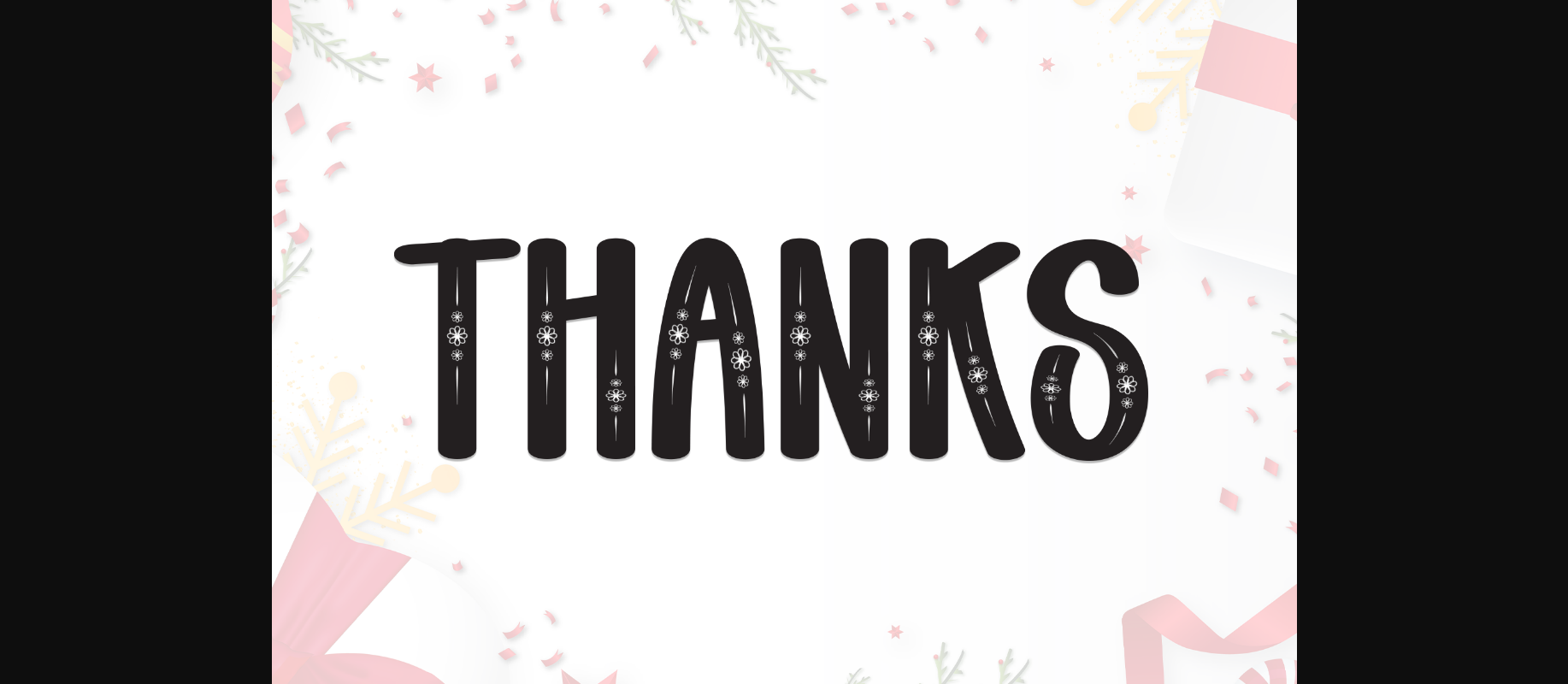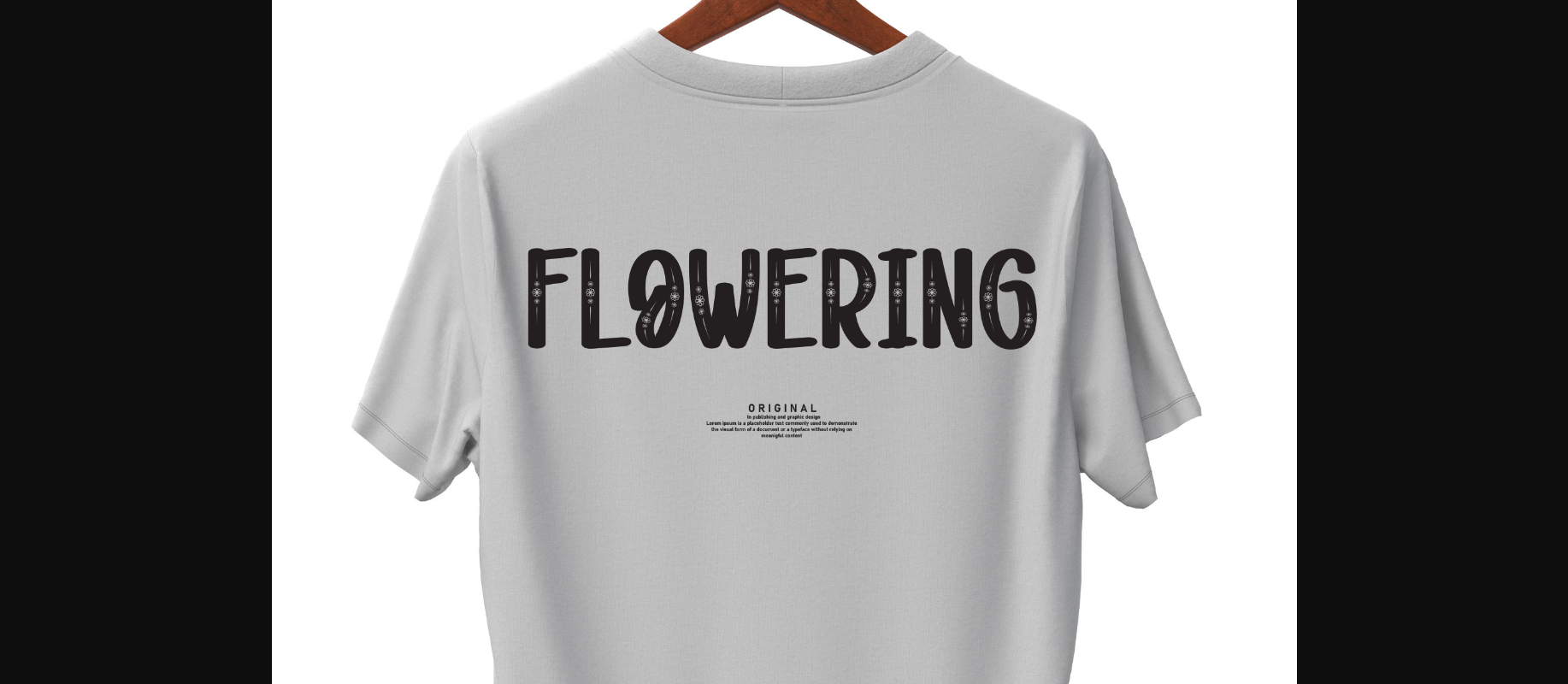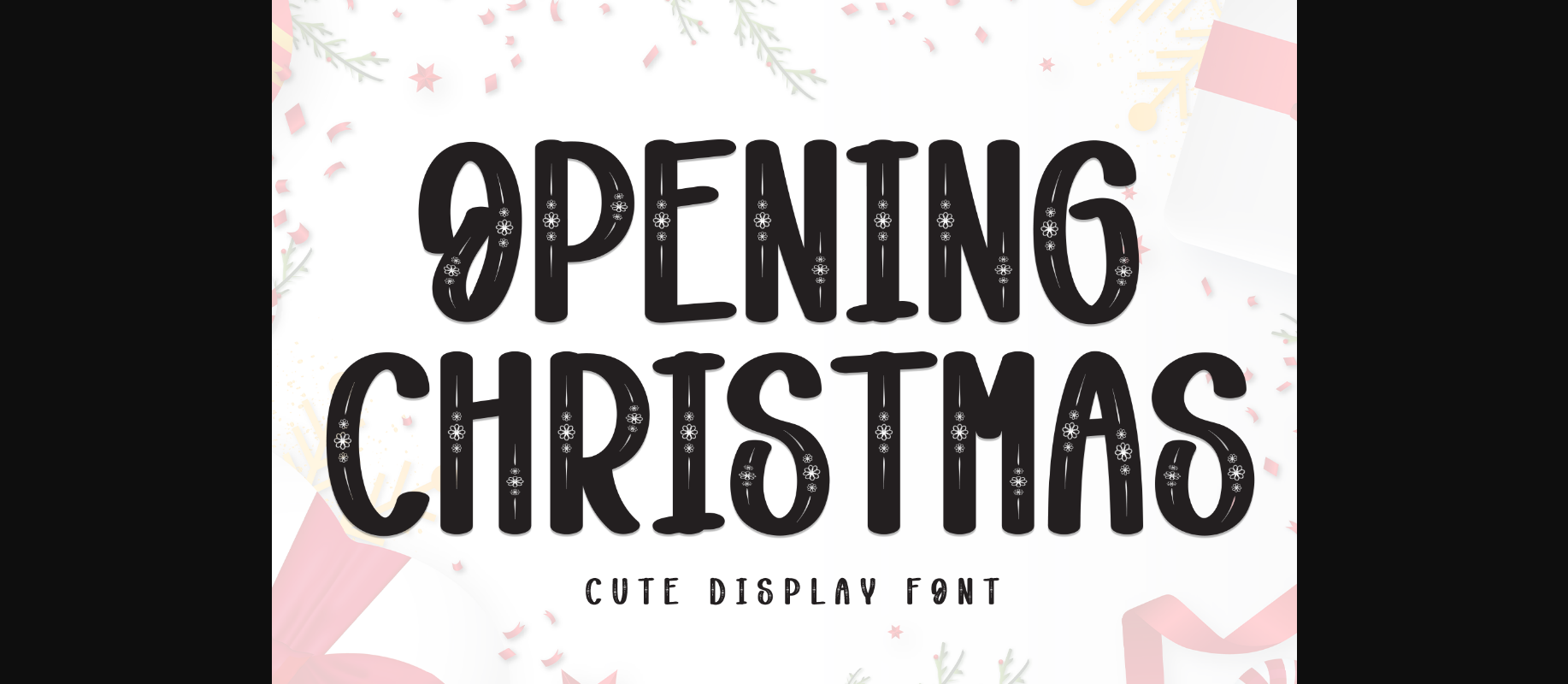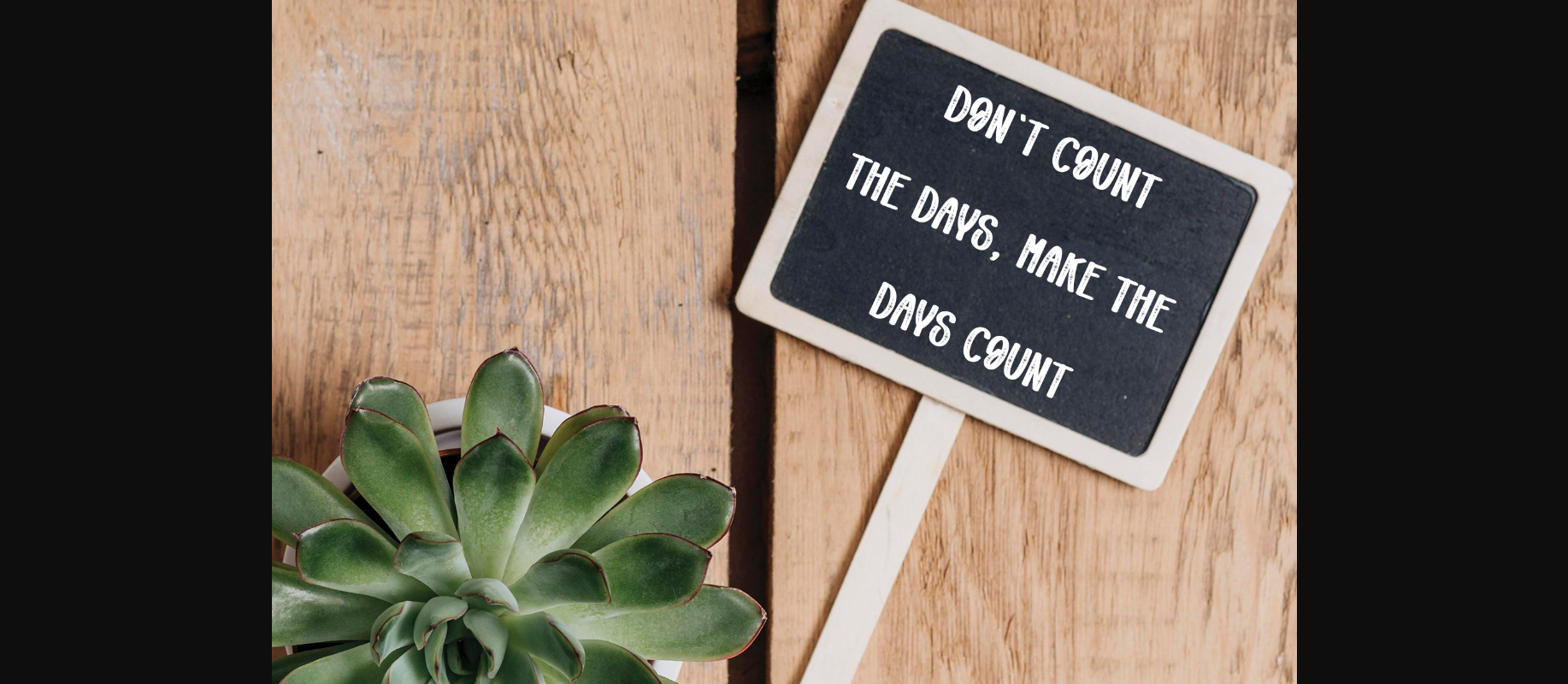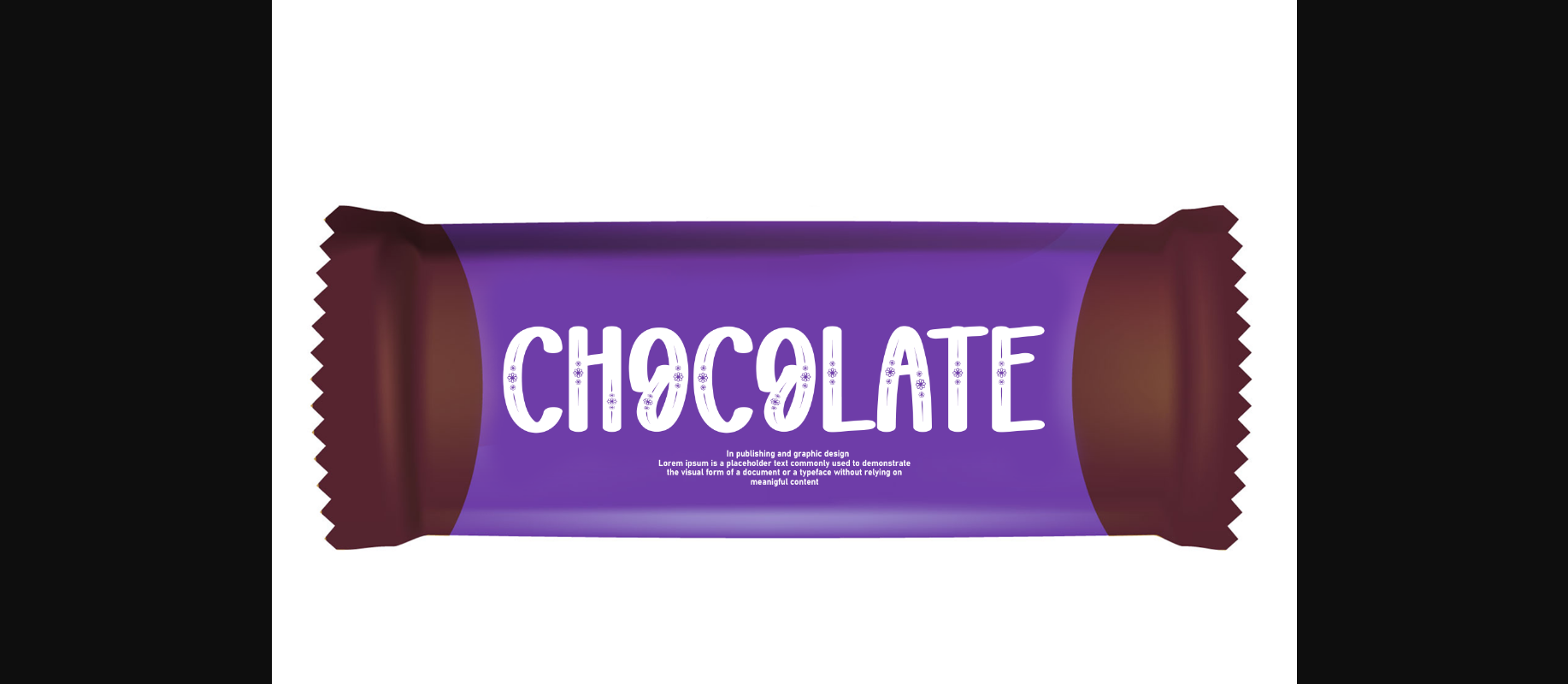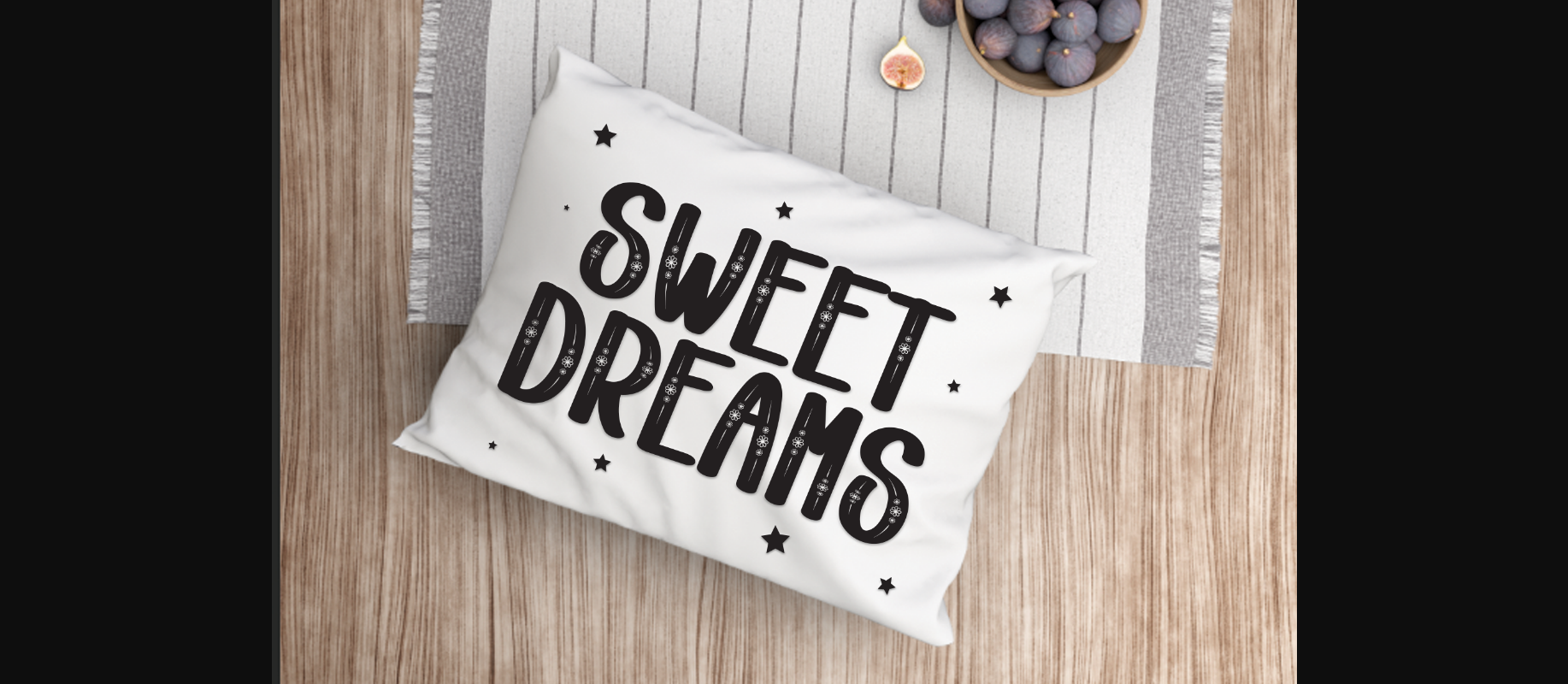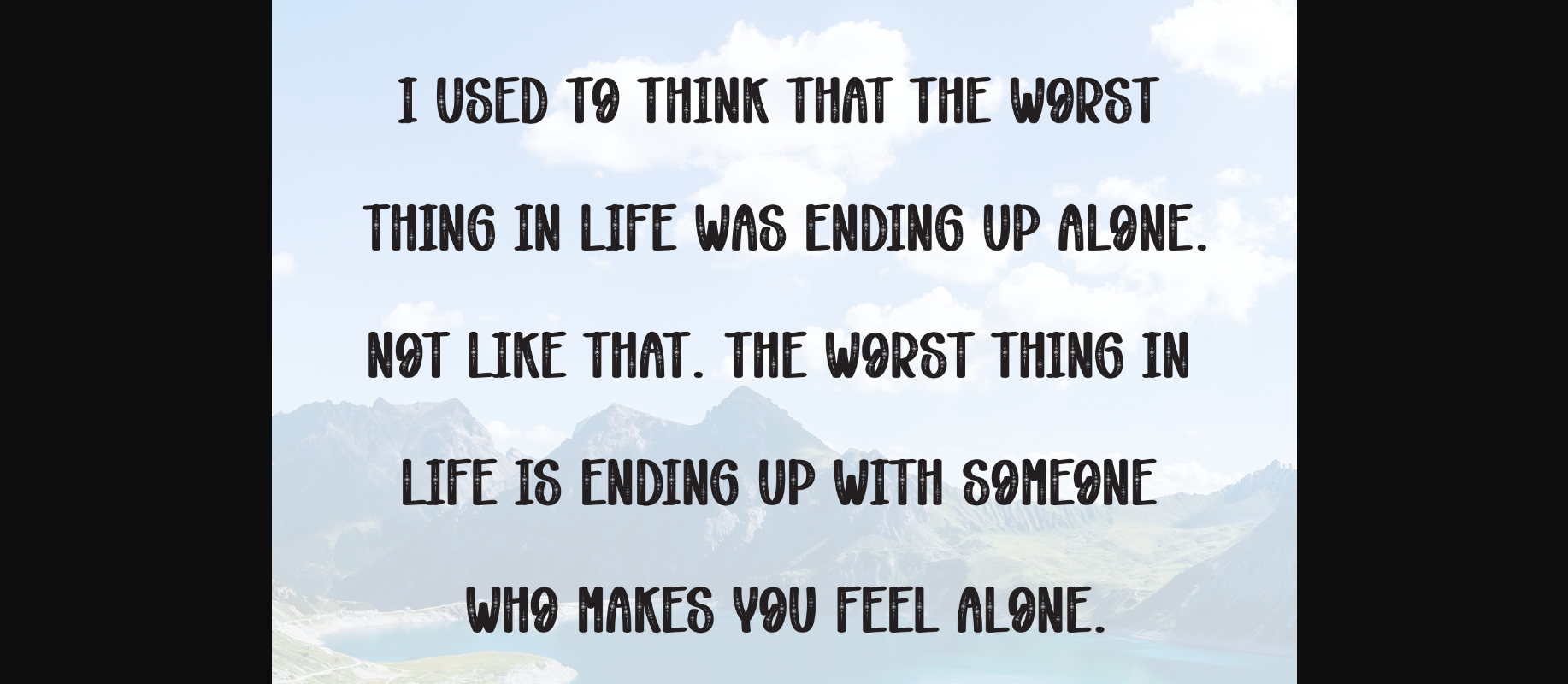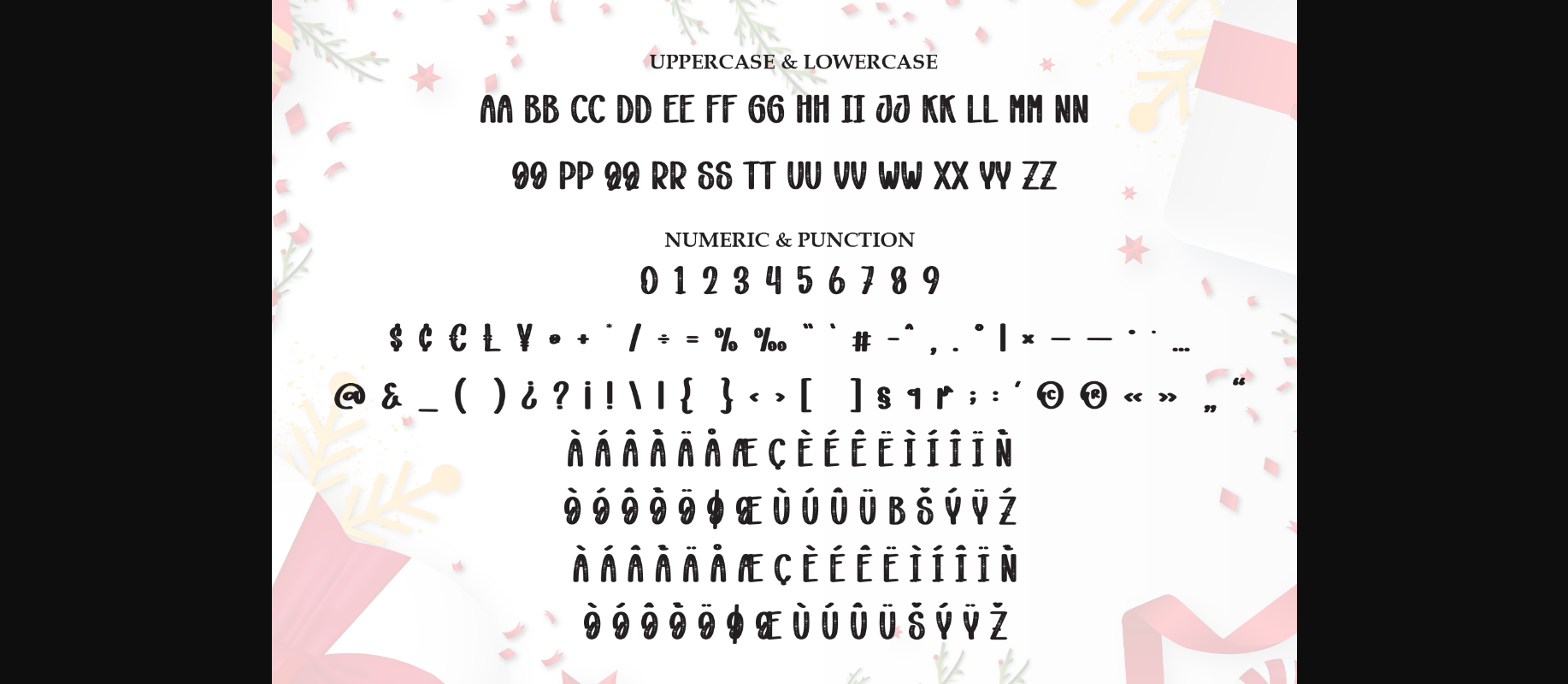
Opening Christmas Font
About Opening Christmas Font
Opening Christmas is a delightful Christmas font featuring a unique set of letters adorned with charming Christmas motifs. This decorative typeface adds a touch of wintry magic to your holiday projects, making your text truly festive and memorable.